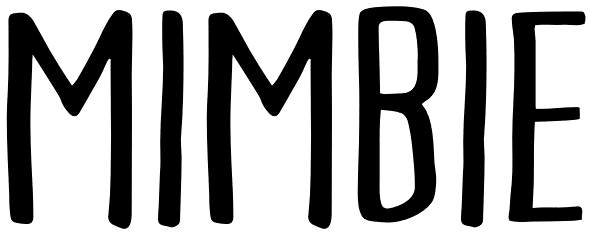
Mimbie
A quirky handwritten headline font with doodley artwork by Cultivated Mind. This font collection includes three weights (Regular, SemiBold, and Bold).